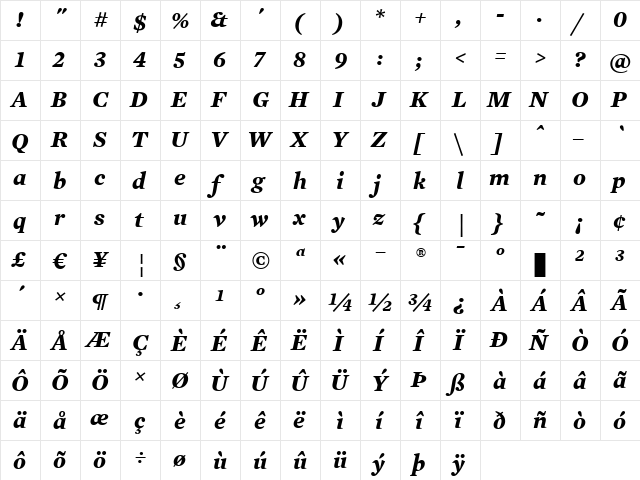
Mercury Text G3 Bold Italic
Design Context for Mercury Text G3 Typeface
Mercury Text G3 takes a measured approach to typography — its balanced proportions and neutral character make it a reliable workhorse for both digital and print work. The dynamic lean of this cut emphasises speed and emphasis in any layout. Its bold stroke weight gives it real presence on the page.
Pro Tip: Use Mercury Text G3 for emphasis, pull quotes, and subheadings where its slanted energy can add rhythm to the layout.